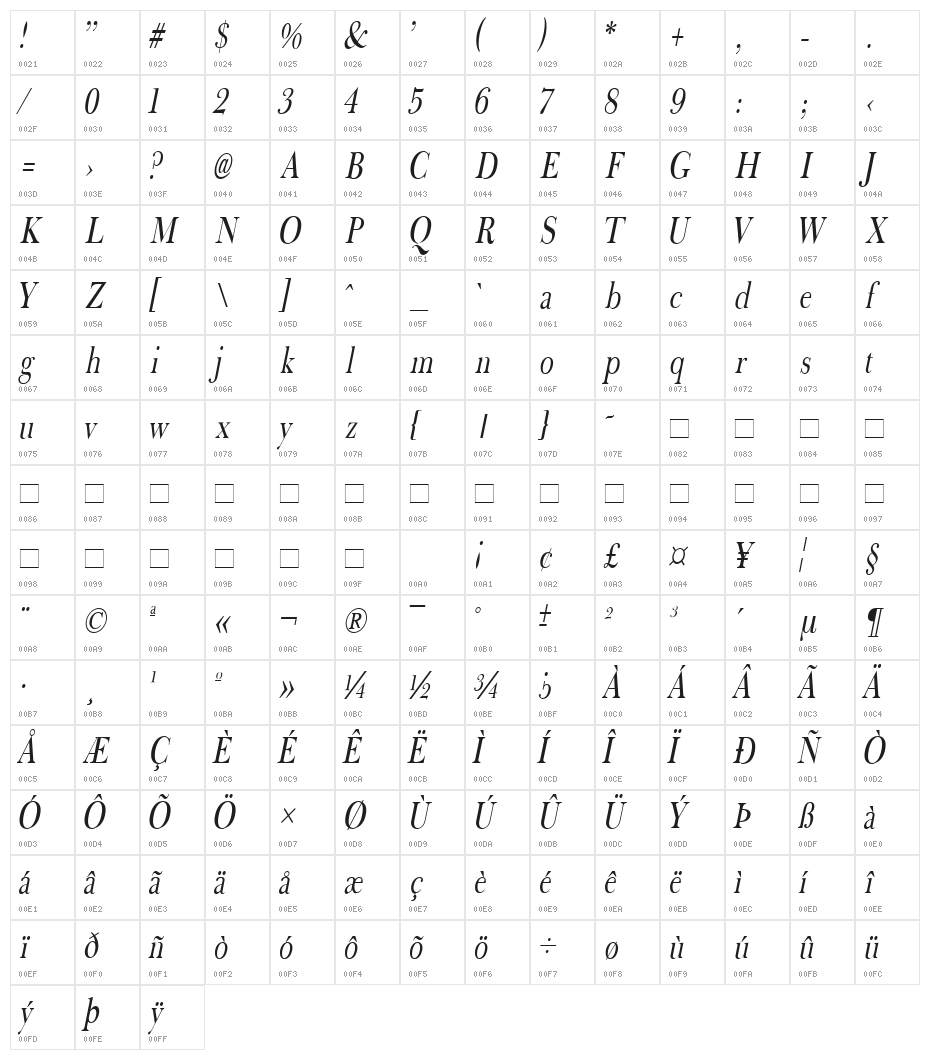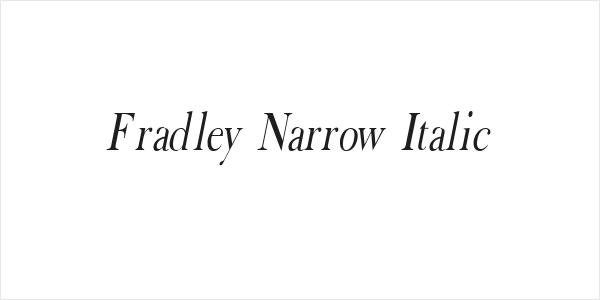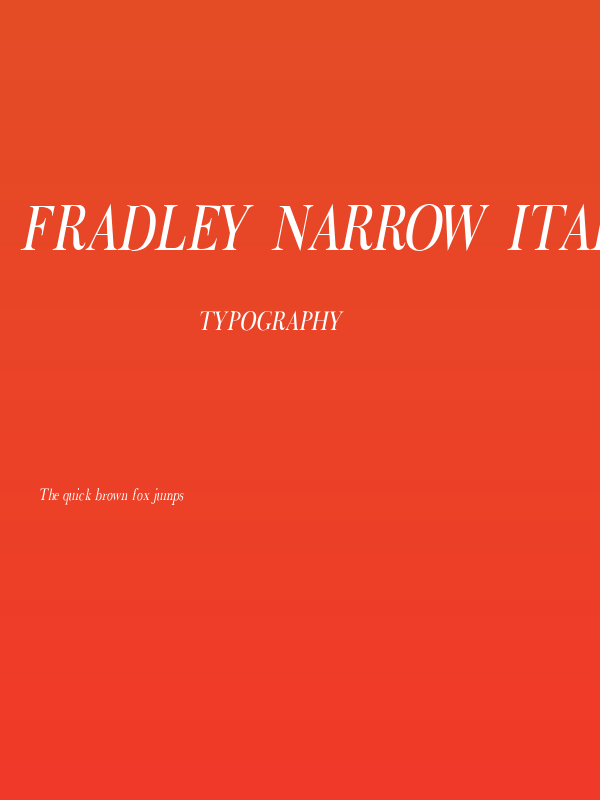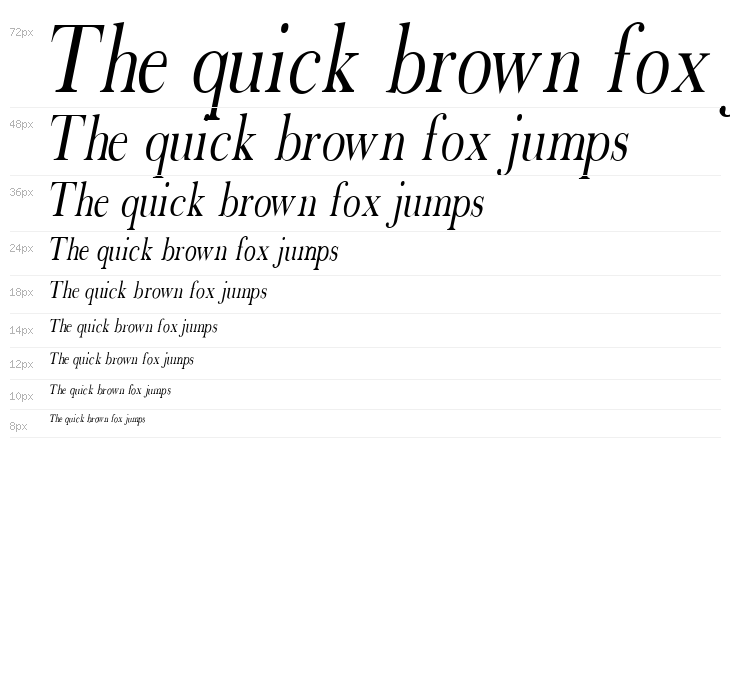
Fradley Narrow Italic Font
Fradley Narrow Italic Description
This font exhibits a classic serif style with a narrow and italicized form, giving it an elegant and sophisticated appearance. The characters are slightly condensed, which enhances its refined look. The serifs are sharp and pronounced, adding a touch of formality and tradition. The italic slant provides a dynamic and fluid feel, making it suitable for both formal and creative applications. The stroke contrast is medium, ensuring readability while maintaining a stylish flair. Overall, this font balances elegance and readability, making it versatile for various design needs.
Overall StyleClassic
Use CaseHeadlines, Editorial design, Branding
Proposed ProjectsIdeal for use in formal invitations, editorial design, luxury branding, and elegant website headers.